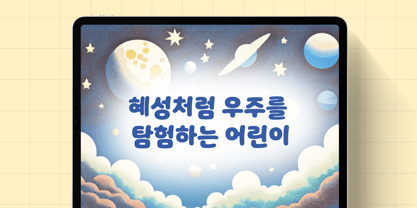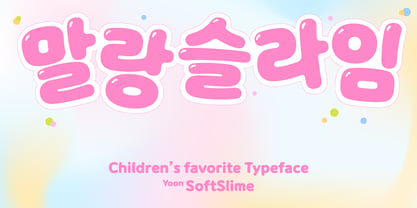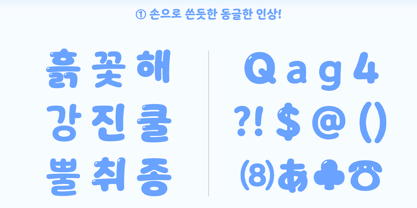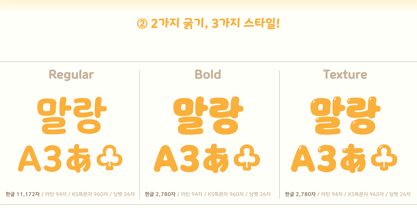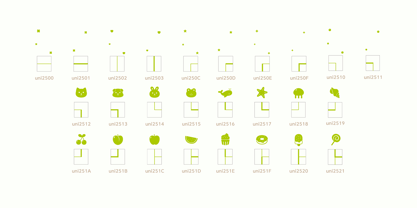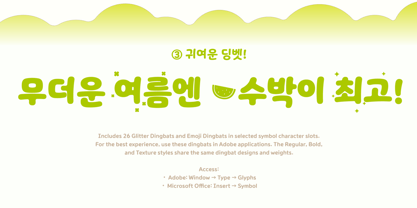
Yoon SoftSlime
by Yoon Design
The Yoon SoftSlime Font Family was designed by Yoon Design Team and published by Yoon Design. Yoon SoftSlime contains 3 styles and family package options. More about this family
Inspired by children's slime toys, Yoon SoftSlime is built for the Alpha Generation. Featuring a rounded handwritten style, it includes Regular for subtitles, Bold for headlines, and Texture for expressive graphics across streaming platforms.
Family size: 3 styles (Regular, Bold, Texture).
Glyph count: 11,172 hangeul glyphs (Regular), 2,780 hangeul glyphs (Bold & Texture), 95 Latin glyphs, 960 KS symbols, and 26 slime dingbats.
Designers: Yoon Design Team
Foundry: Yoon Design